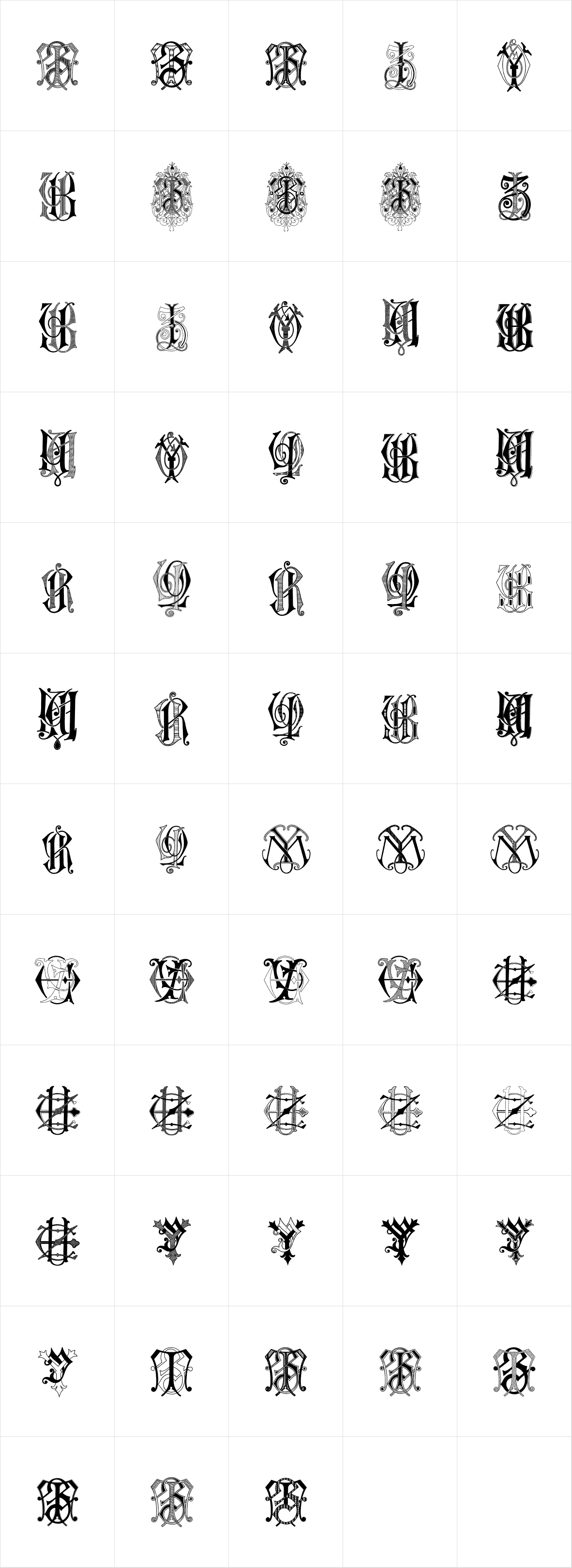
Intellecta Monograms Soft Font
Intellecta Monograms Soft is an extensive collection of ancient intrincate monograms of all kinds mainly Victorian style. This new Intellecta s Monograms series was entirely designed by hand without use of auto tracing. Each combination of letters has different interpretations of patterns textures colours (Black Black White White Black White) embossing extrusions and much more. More combination of letters will be launched soon.